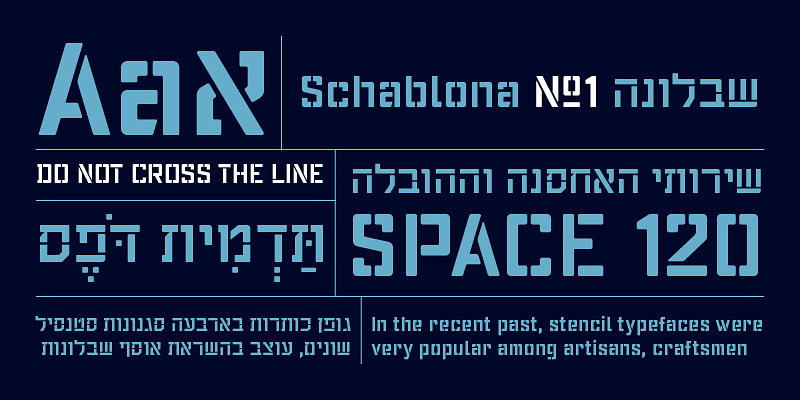
Schablona Font Free Download is a bold, industrial-style stencil typeface designed for maximum impact and utilitarian clarity. Inspired by traditional stencil lettering used in signage, packaging, and military applications, Schablona features strong geometric shapes and breaks within its letterforms, making it ideal for display purposes, branding, posters, labels, and street-style graphics.
Its raw and functional aesthetic brings a rugged, urban edge to design projects, while maintaining high legibility even in challenging visual environments. Whether you're aiming for a contemporary industrial look or a retro-inspired utilitarian vibe, Schablona Font delivers with strength and style.